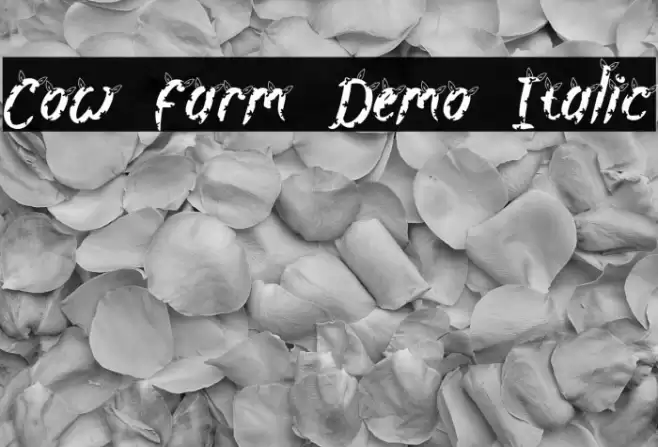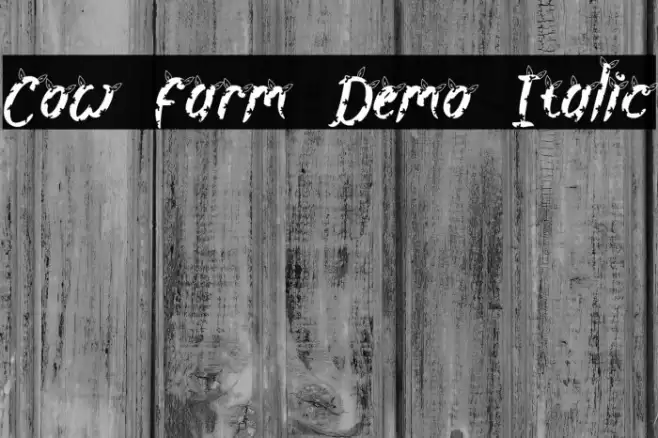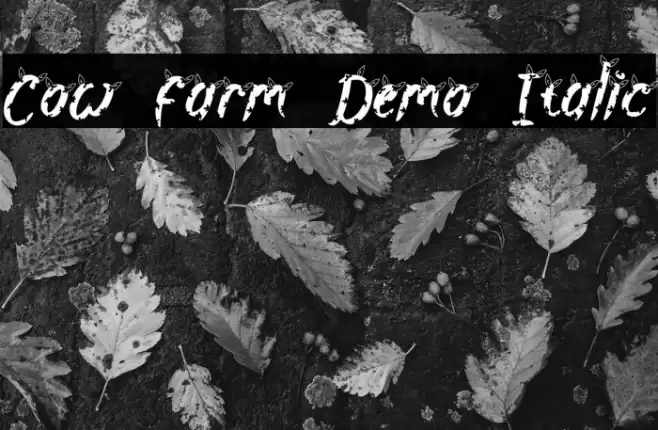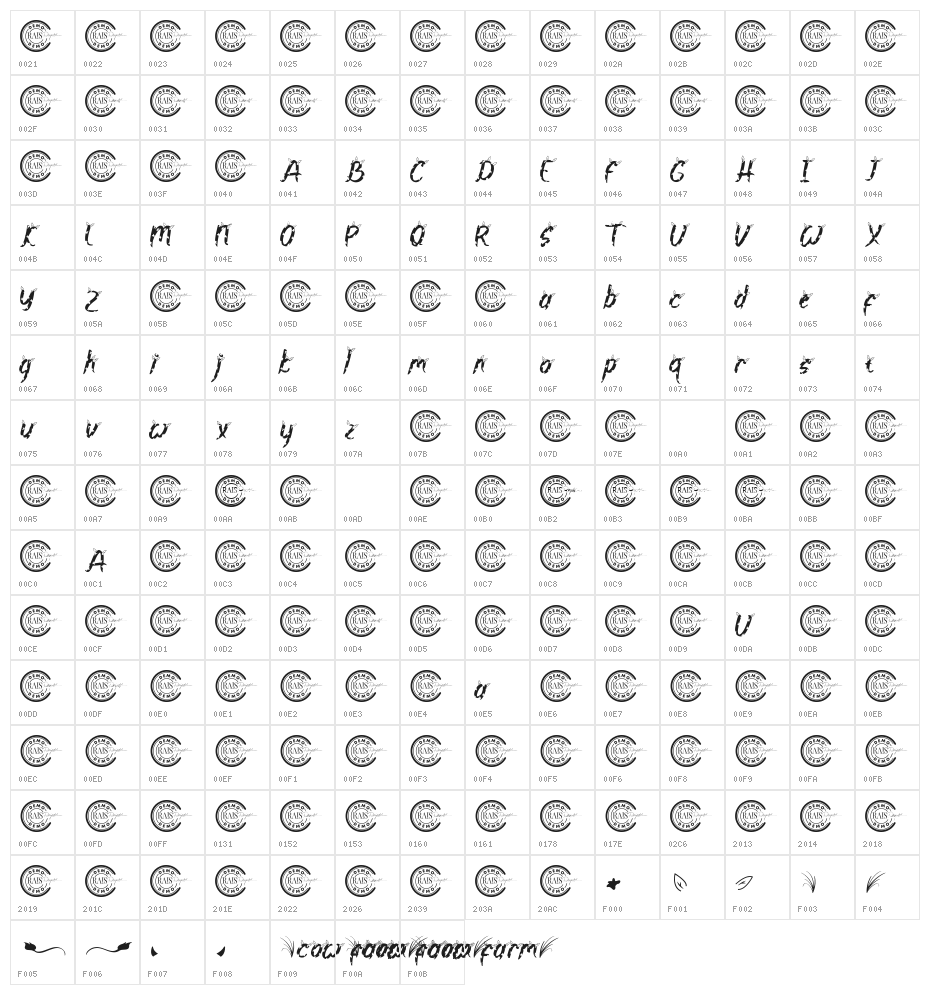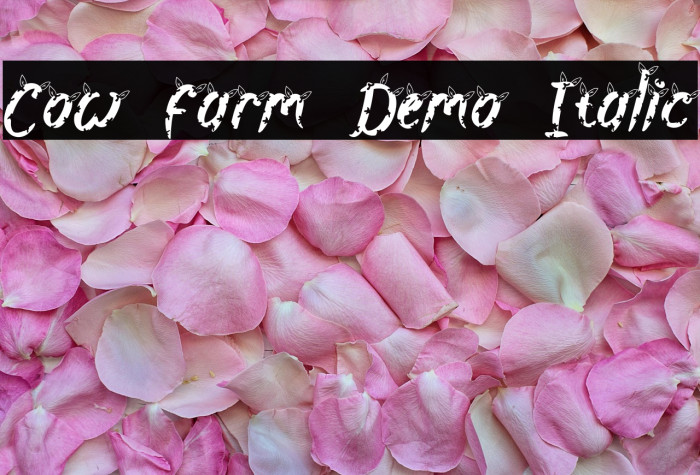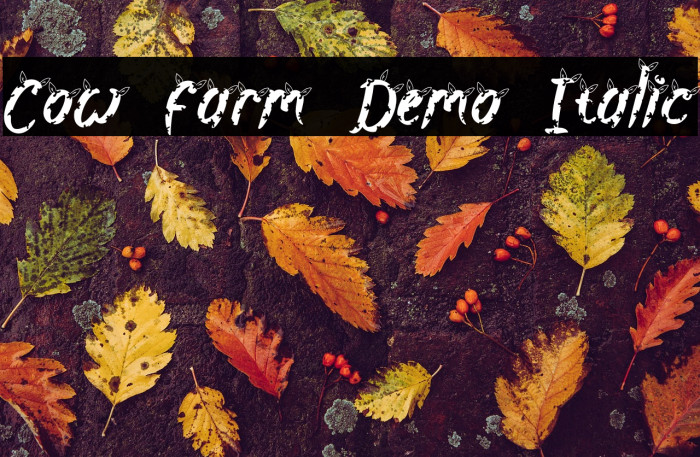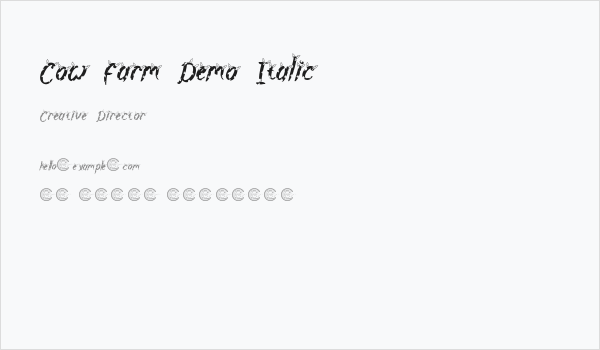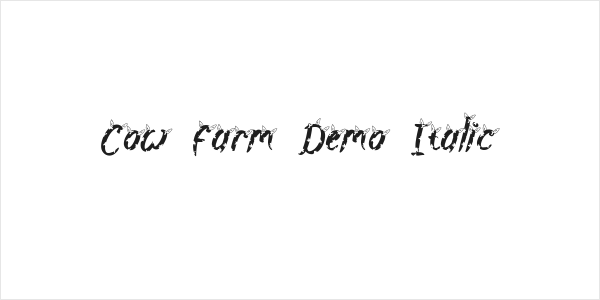
Cow Farm Demo Italic Font
Cow Farm Demo Italic Description
This font features a playful and decorative style with a farm-themed design. Each character is adorned with small cow ears and spots, giving it a unique and whimsical appearance. The letters are italicized, adding a sense of movement and dynamism. The strokes are moderately thick, providing a medium contrast that enhances readability while maintaining the decorative elements. The overall design is cohesive, with consistent embellishments across both uppercase and lowercase letters, as well as numbers and special characters.
A playful, farm-themed decorative font with cow motifs and italic styling from Uncategorized fonts.
- Proposed Projects: Ideal for children's books, farm-themed event posters, playful branding, and novelty product packaging.
- Overall Style: Decorative
- Use Case: Logos, Headlines, Posters